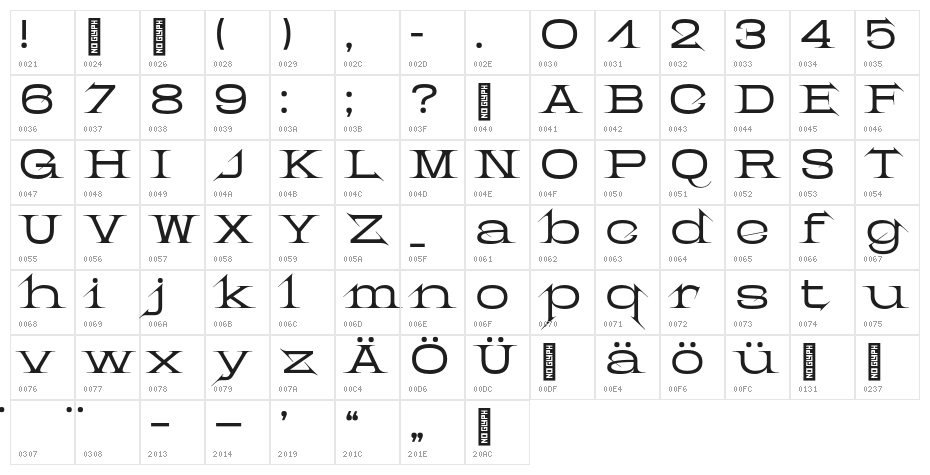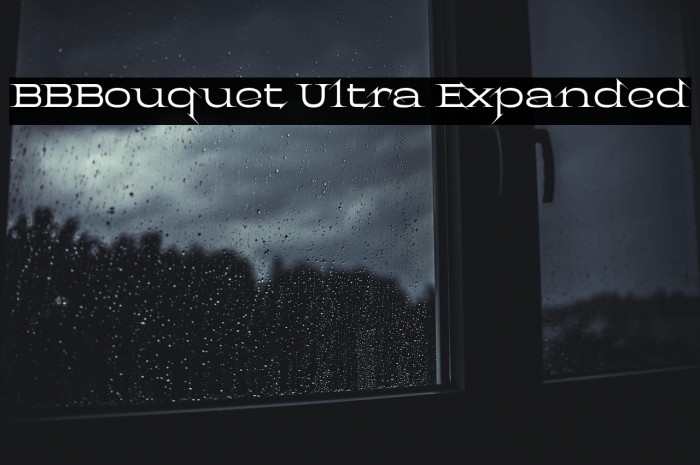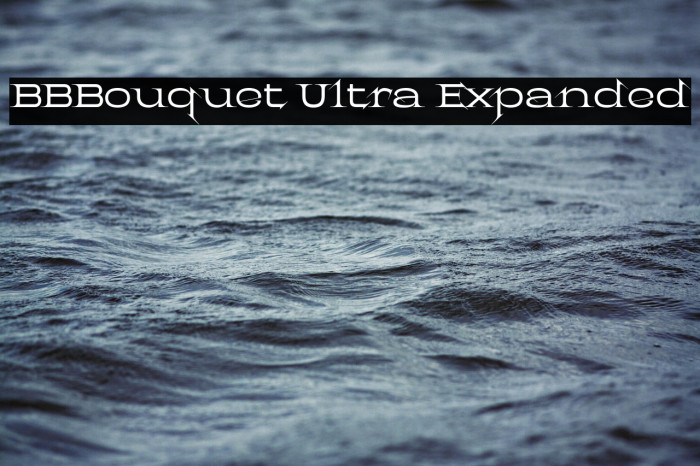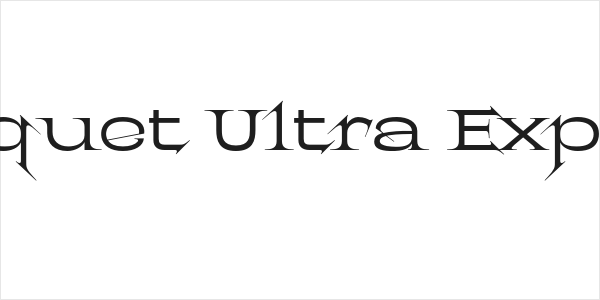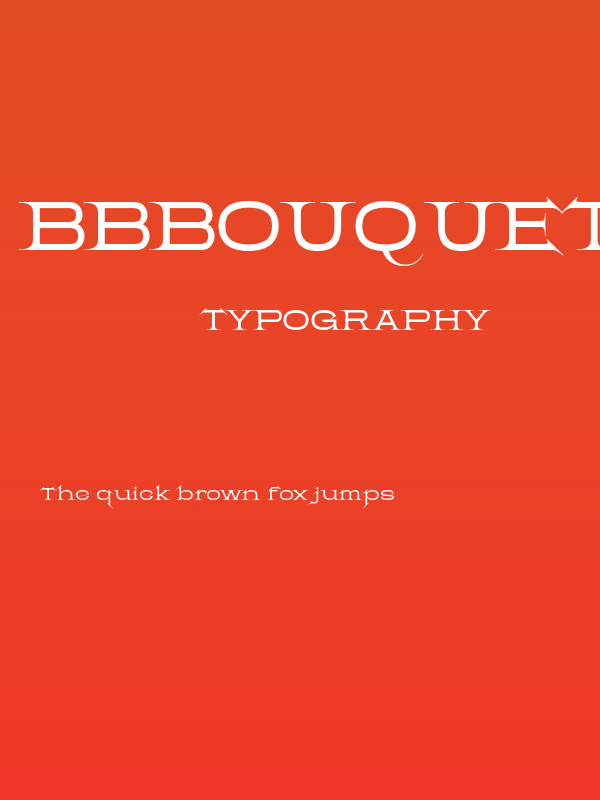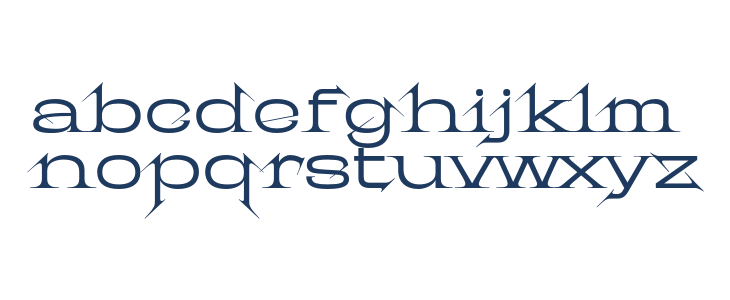
BBBouquet Ultra Expanded Font
BBBouquet Ultra Expanded Description
This font features a unique and decorative style with sharp, angular serifs that give it a distinct, edgy appearance. The uppercase letters are bold and commanding, while the lowercase letters maintain a consistent design with a slightly softer touch. The numerals are clear and easy to read, complementing the overall aesthetic. The font's expanded width enhances its presence, making it suitable for eye-catching designs. Its high contrast in stroke thickness adds to its dramatic flair, making it ideal for creative and artistic projects.